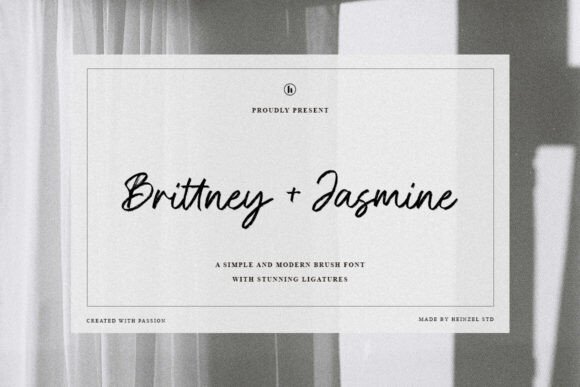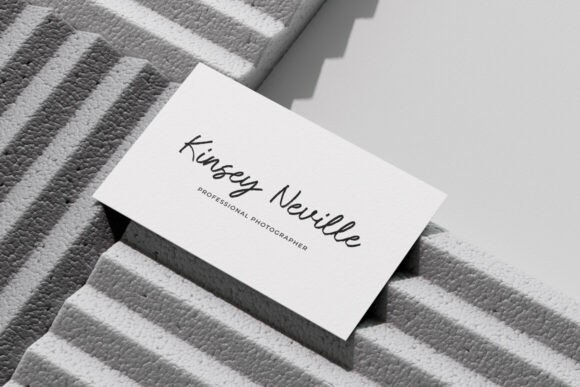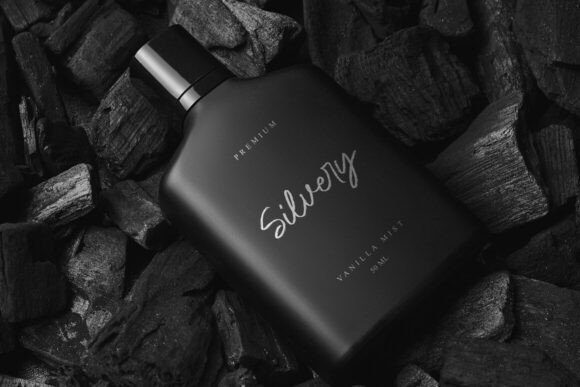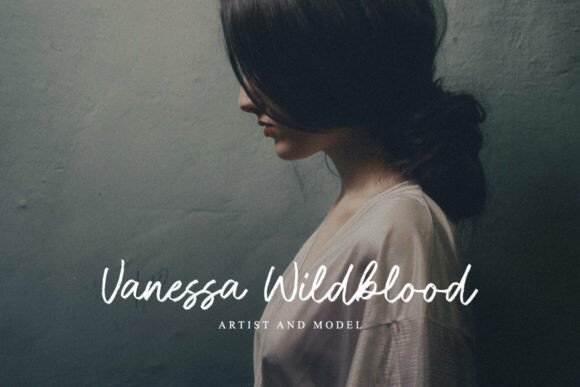
Brittney and Jasmine Font
About the Brittney and Jasmine Font
Step up your design game with Brittney and Jasmine Font, a font that exudes confidence and style. Brittney and Jasmine is a modern brush script font that combines bold strokes with a touch of elegance. Designed to capture the dynamic feel of hand-lettering, this font delivers a stylish and contemporary look that’s perfect for branding, logos, invitations, social media graphics, and more. With its natural brush texture and fluid letterforms, Barnsley Brush adds personality and flair to any design project, making your words stand out with effortless charm.
Its bold yet elegant nature makes Brittney and Jasmine ideal for headlines, short text blocks, and logos requiring a touch of hand-crafted sophistication. It excels in branding for fashion, beauty, or lifestyle products where a sense of modern luxury is desired. However, its brush strokes and varying letterforms make it less suitable for body text or UI elements where readability is paramount.
Consider pairing Brittney and Jasmine with a clean sans-serif like Montserrat for a contemporary contrast, or a classic serif such as Garamond for a more traditional feel. For a playful approach, a geometric sans-serif like Futura could add a modern edge.
The overall personality is sophisticated and energetic; stylish but approachable. Avoid using it for projects requiring extreme legibility or a highly formal tone.
Brittney and Jasmine Font Usage Examples
Brittney and Jasmine Font Example